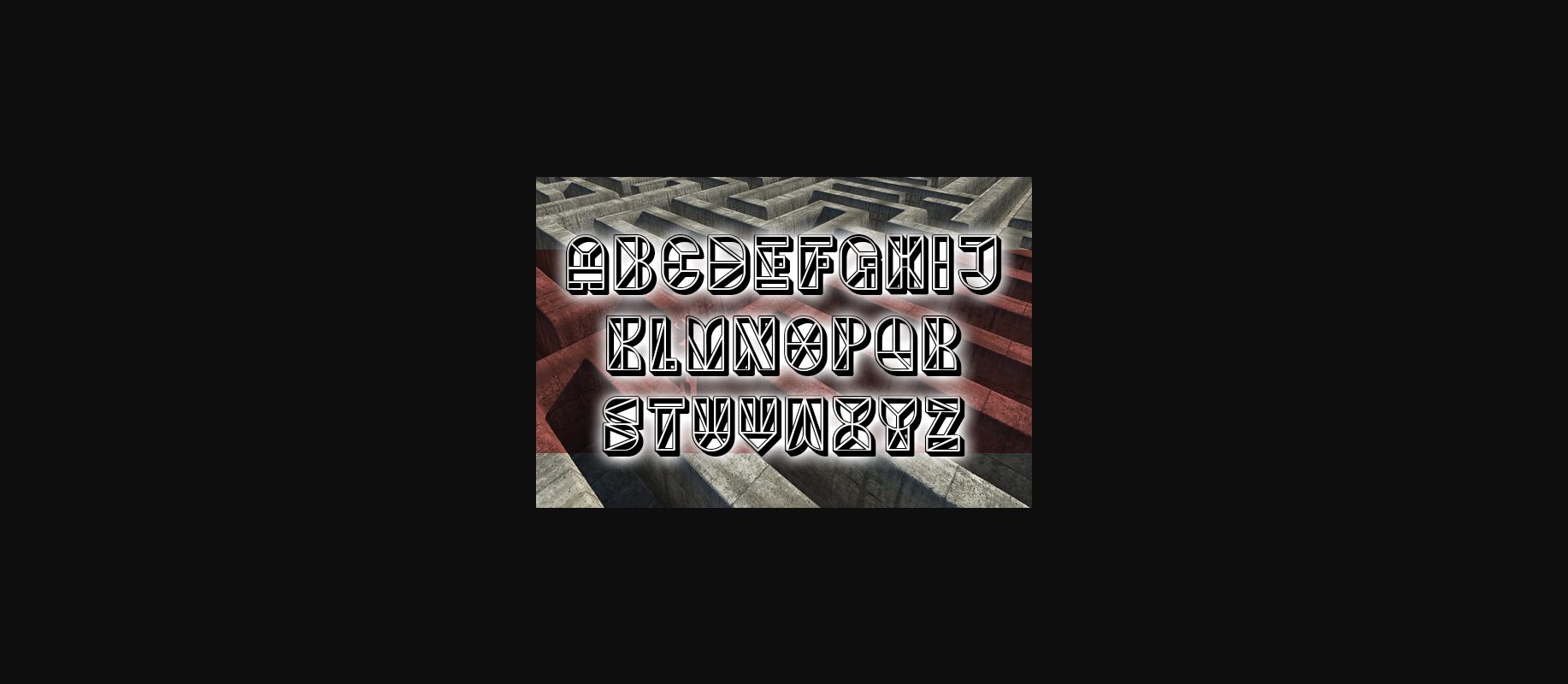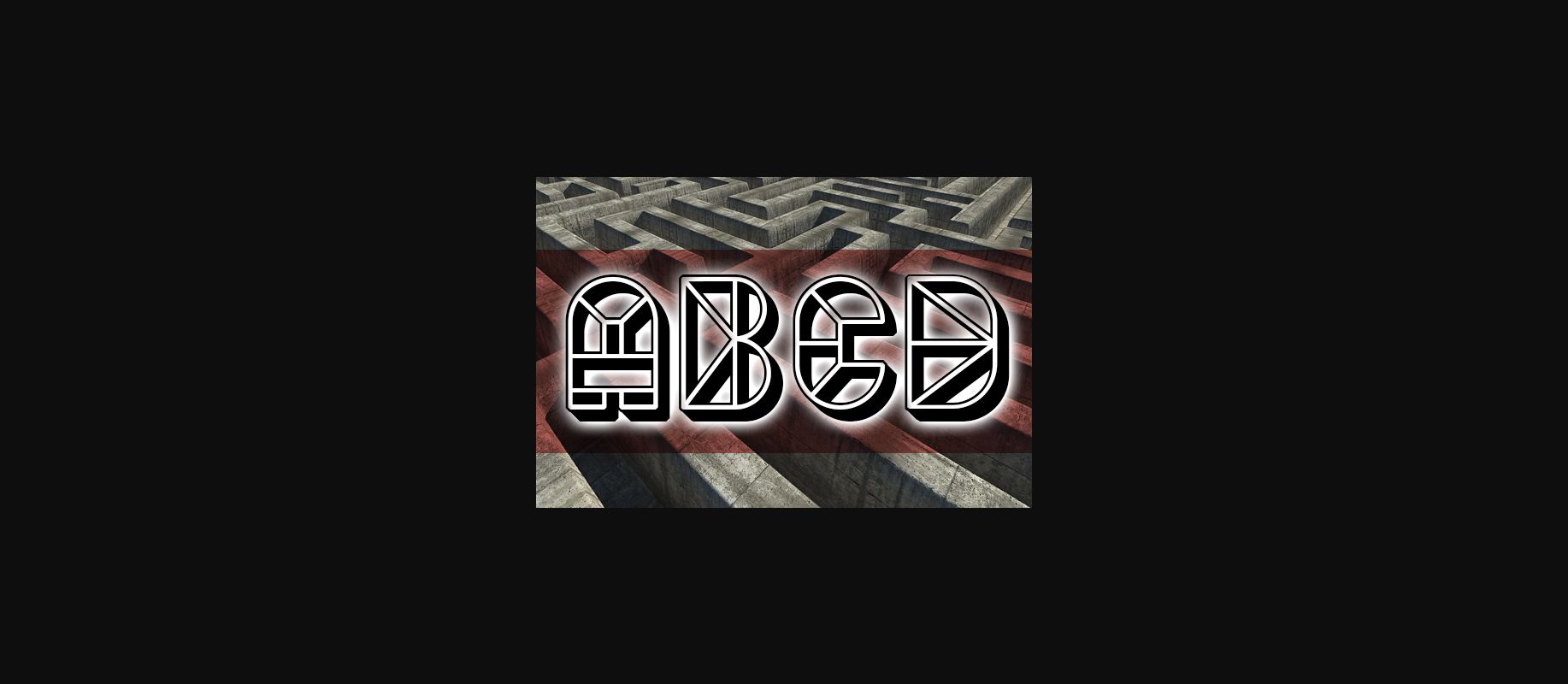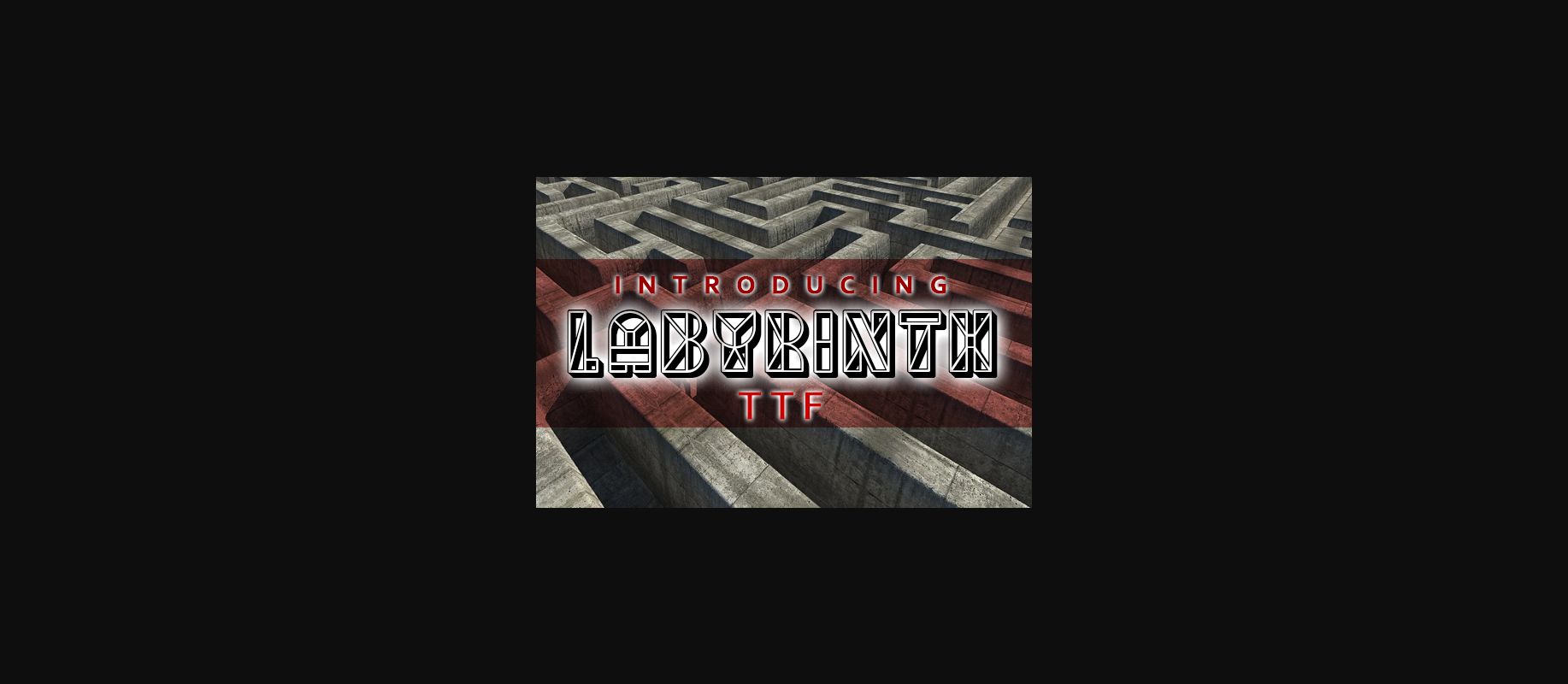
Labyrinth Font
About Labyrinth Font
Labyrinth is an awesome 3D display font that will fit perfectly on each of your designs. Have fun with this beautiful font and explore its endless variations.